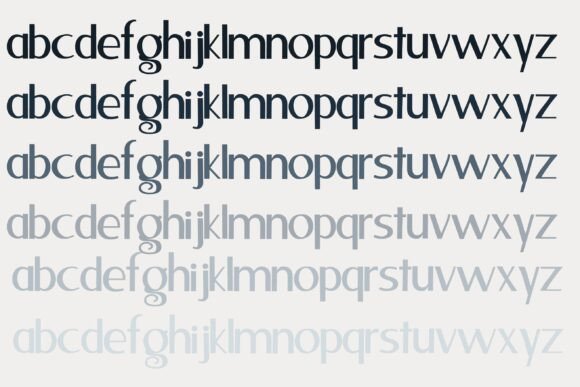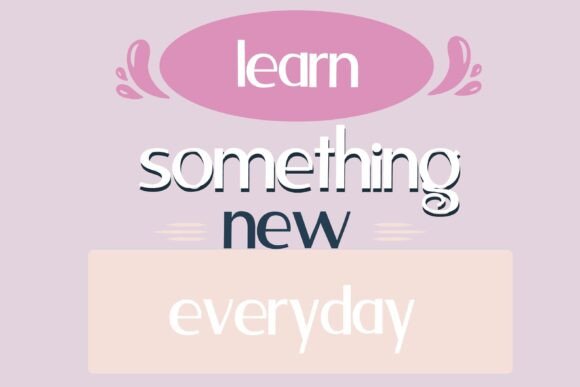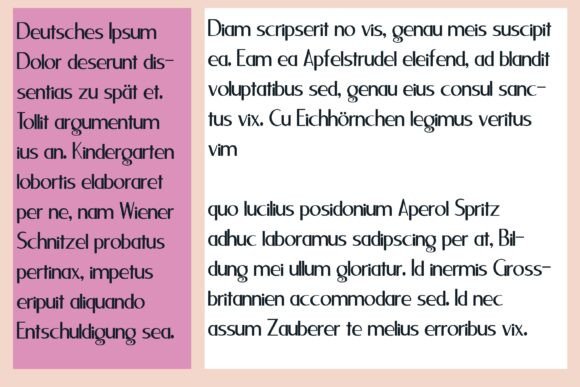
Chandlering Font
This hand-crafted sans serif is squatty and a bit modern.A hand-crafted font is a font that is designed to look like it was written by hand. It is often used for invitations, greeting cards, and other items. Handwritten fonts can be either formal or informal, and they can be used for a variety of purposes.